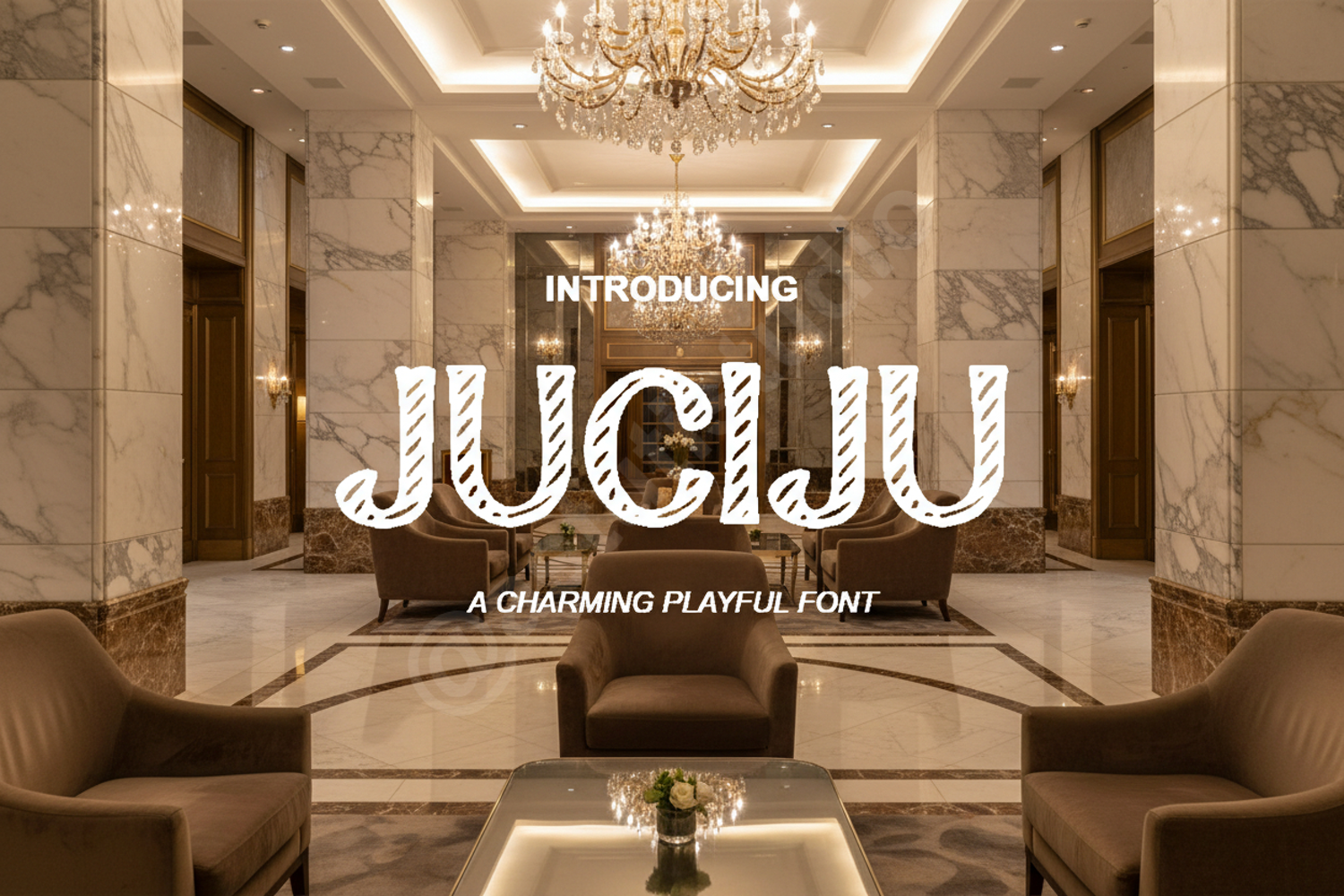
Juciju - Elegant Modern Serif Typeface
Juciju
Elevate your design projects with Juciju, a premium serif font that perfectly balances contemporary flair with timeless elegance. Crafted with meticulous attention to detail, Juciju offers a sophisticated aesthetic that ensures your message is delivered with style and clarity. Whether you are designing for a high-end fashion house or a minimalist lifestyle brand, this font provides the professional polish and versatility required for modern creative work.
- Branding and Identity: Create impactful logos and brand guidelines for luxury and boutique businesses.
- Wedding and Event Stationery: Design sophisticated invitations, menus, and programs.
- Editorial Design: Perfect for high-fashion magazine headers, book covers, and digital journals.
- Social Media Content: Craft eye-catching quotes and promotional graphics for Instagram and Pinterest.
- Product Packaging: Enhance the shelf appeal of premium retail products and labels.